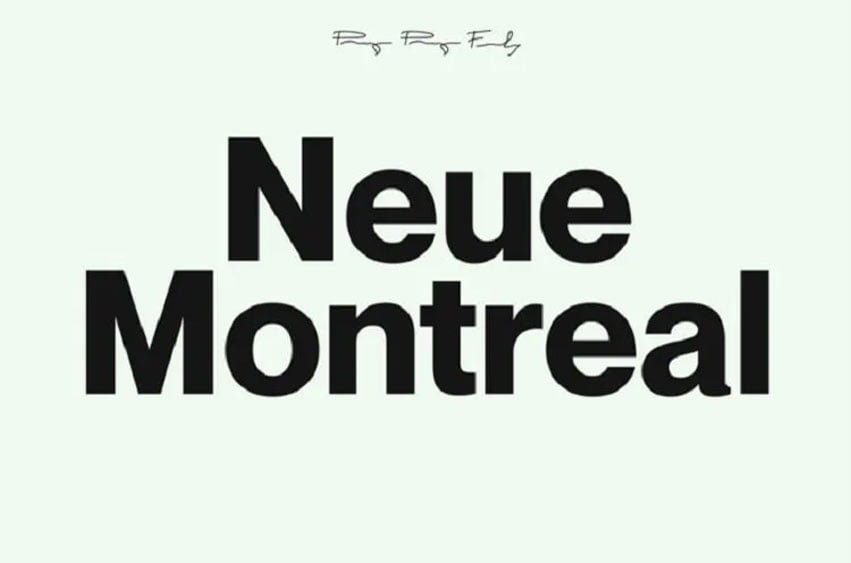
Neue Montreal Font is designed and shared by Pangram Pangram. A versatile Grotesque font with the spirit of a display font. Complete with 8 weights (4 Romans, 4 Italics) and a slightly tighter kerning, this typeface was created to be your next champion font. It can easily be used in many contexts, layouts and settings.